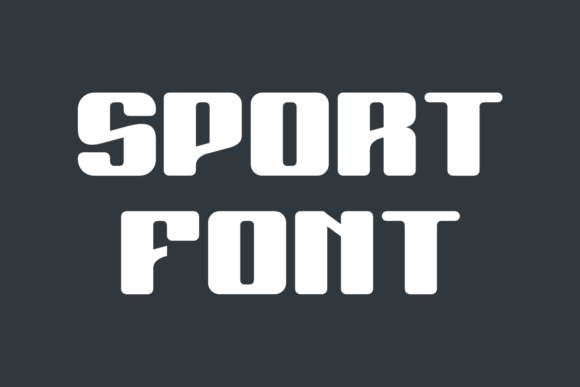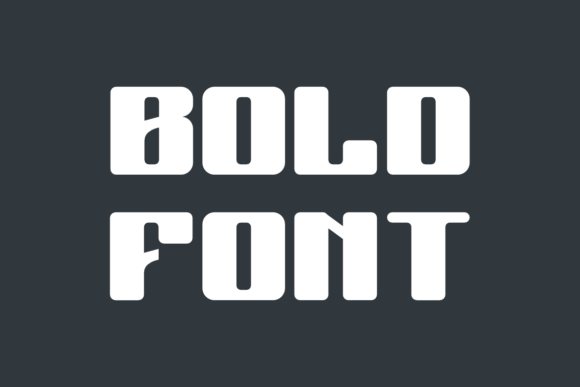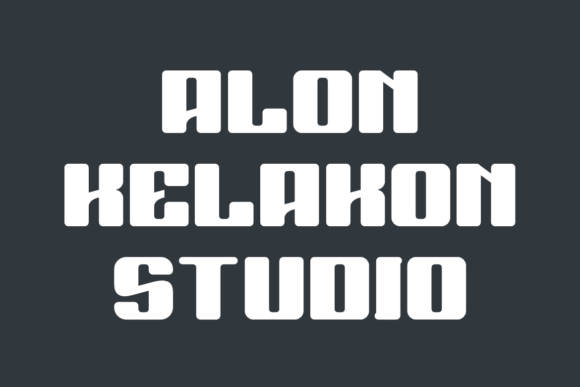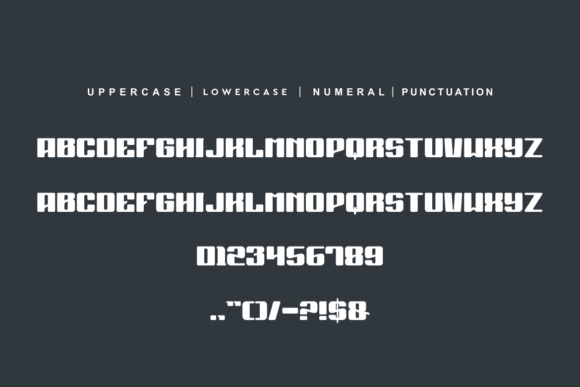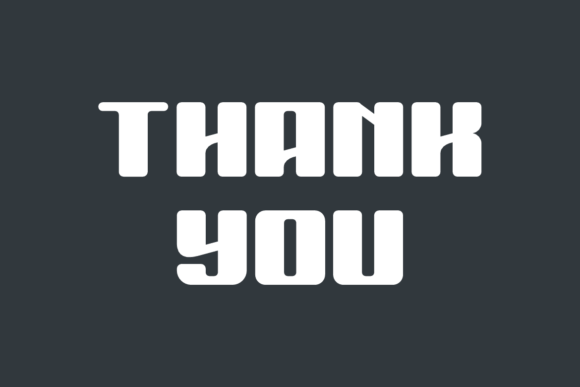
Introducing Depors Font: The Bold and Assertive Sans Serif Font
In the world of typography, a font can make or break a design. It’s the foundation upon which a visual masterpiece is built. For designers and crafters, finding the perfect font can be a daunting task. However, if you’re looking for a bold and assertive sans serif font that can elevate any creation, look no further than Depors Font.
What is Depors Font?
Depors is a modern sans serif font that exudes confidence and sophistication. Its clean lines, precise curves, and bold strokes make it an excellent choice for a wide range of design projects. Whether you’re working on a logo, brochure, website, or social media post, Depors Font is sure to make a statement.
Key Features of Depors Font
• Bold and Assertive: Depors Font is designed to grab attention. Its bold strokes and assertive presence make it perfect for headlines, titles, and emphasis text.
• Sans Serif: The clean and minimalist sans serif design of Depors Font ensures that your text is easy to read, even at small sizes.
• Versatile: Depors Font can be used for a wide range of design projects, from print materials like brochures and posters to digital applications like websites and social media graphics.
• Highly Legible: The font’s clear and precise design ensures that your text is easy to read, even for extended periods.
Benefits of Using Depors Font
So, why should you choose Depors Font for your next design project? Here are just a few benefits of using this incredible font:
• Elevate Your Design: Depors Font has the potential to elevate any creation, adding a touch of sophistication and professionalism.
• Stand Out from the Crowd: With its bold and assertive design, Depors Font can help your design stand out in a crowded marketplace.
• Save Time: With Depors Font, you can create stunning designs quickly and easily, without sacrificing quality or style.
• Flexibility: Depors Font can be used for a wide range of design projects, making it an excellent addition to any font library.
How to Use Depors Font
Using Depors Font is easy. Here are a few tips to get you started:
• Headlines and Titles: Use Depors Font for headlines and titles to grab attention and add emphasis.
• Emphasis Text: Use Depors Font for emphasis text, such as highlighting important information or calls-to-action.
• Branding and Logo Design: Use Depors Font for branding and logo design to create a bold and assertive visual identity.
• Web and Digital Design: Use Depors Font for web and digital design projects, such as website headers, social media graphics, and email marketing campaigns.
In conclusion, Depors Font is an incredible asset for any designer or crafter looking to elevate their designs. Its bold and assertive sans serif design makes it perfect for a wide range of design projects, from print materials to digital applications. With its versatility, legibility, and flexibility, Depors Font is sure to become a staple in any font library.